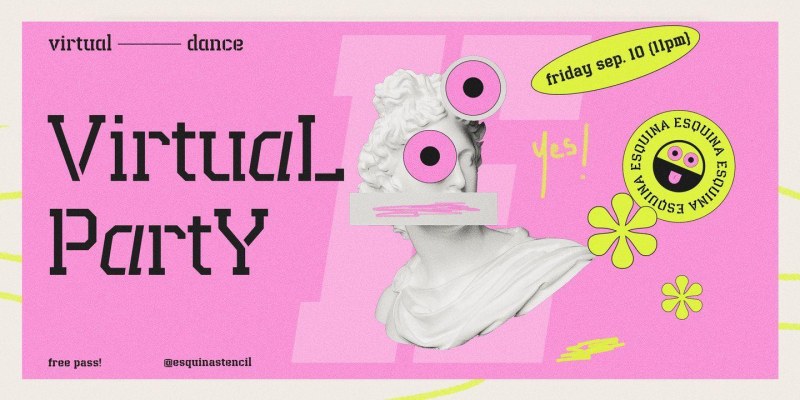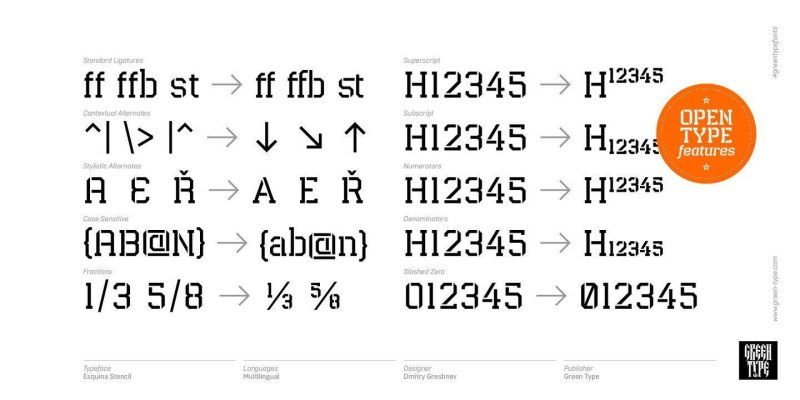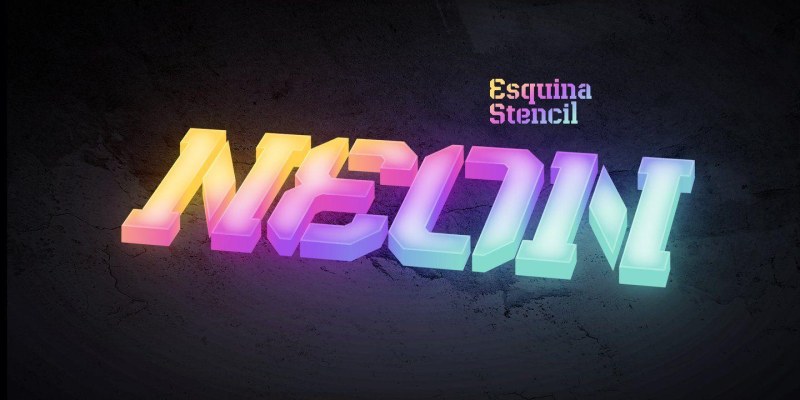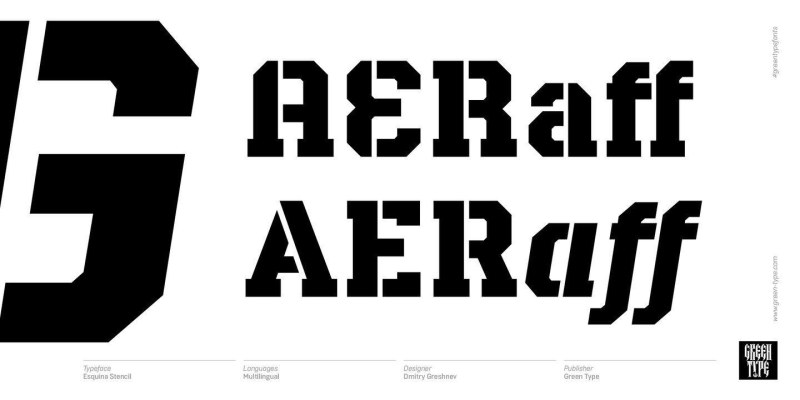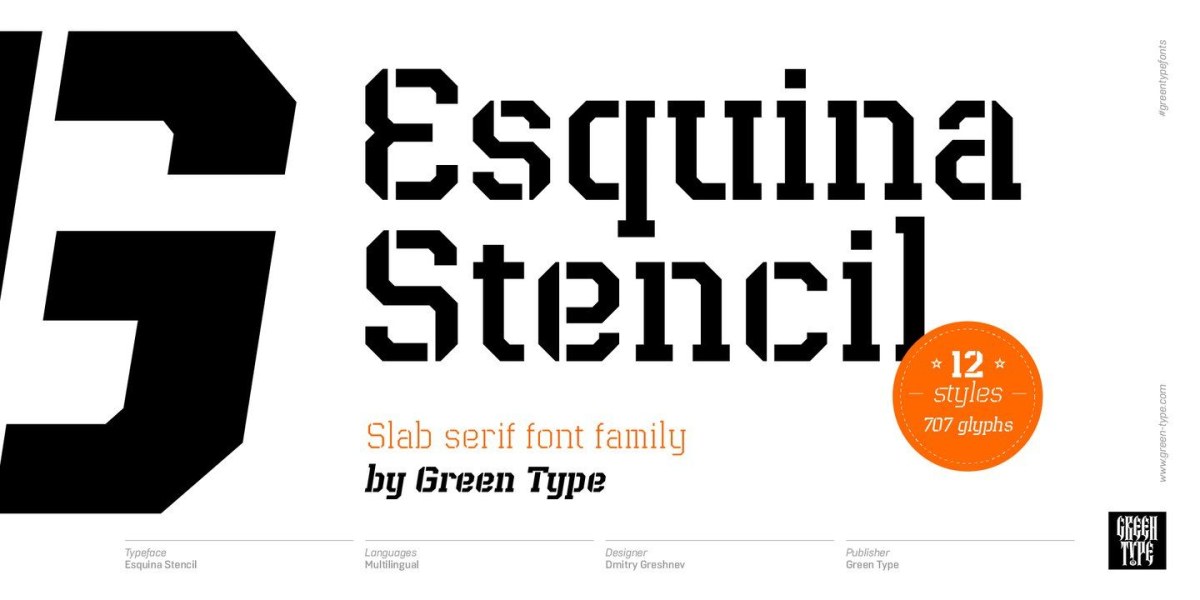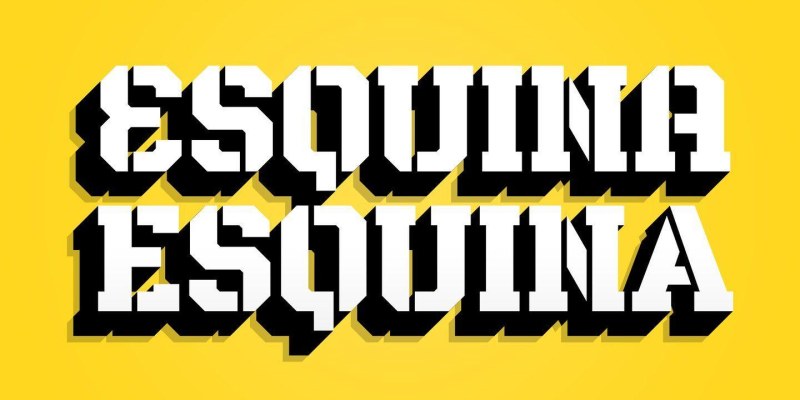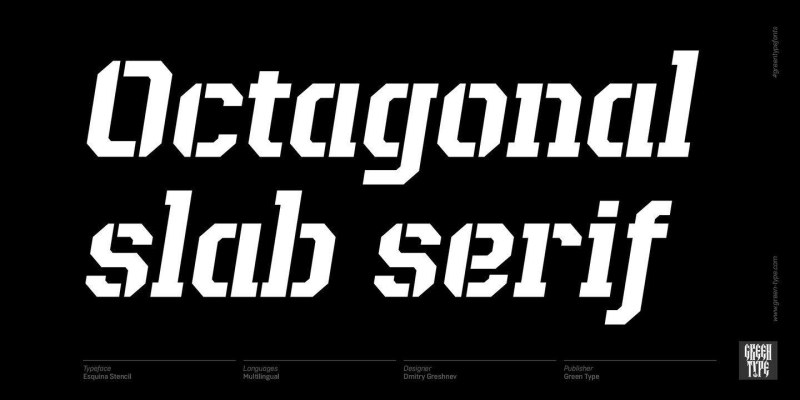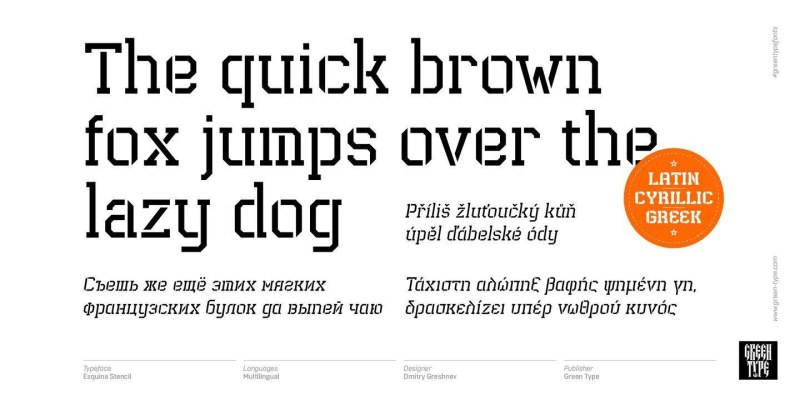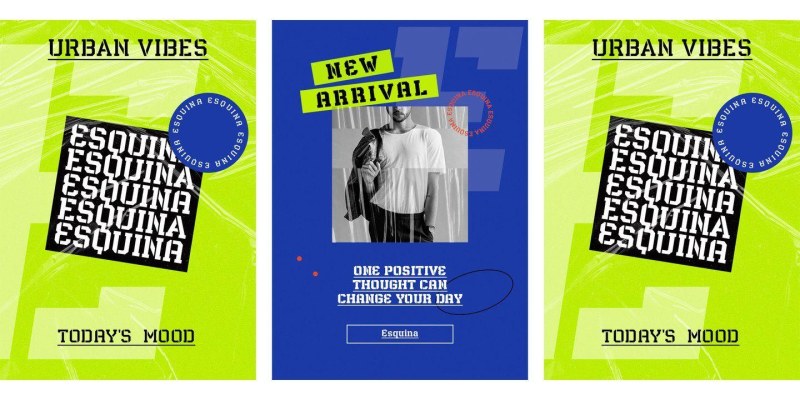
Esquina Stencil Font Family
Esquina Stencil is a family of octagonal slab serif fonts. Designed for use in outdoor advertising, branding, packaging. Esquina Stencil is also ideal for sports related materials such as team logos, flyers, posters and more. Esquina Stencil contains Latin, Cyrillic and Greek glyphs.
Esquina Stencil Font Family is a Display Fonts font that brings a professional and versatile look to your projects. Esquina Stencil is a family of octagonal slab serif fonts.